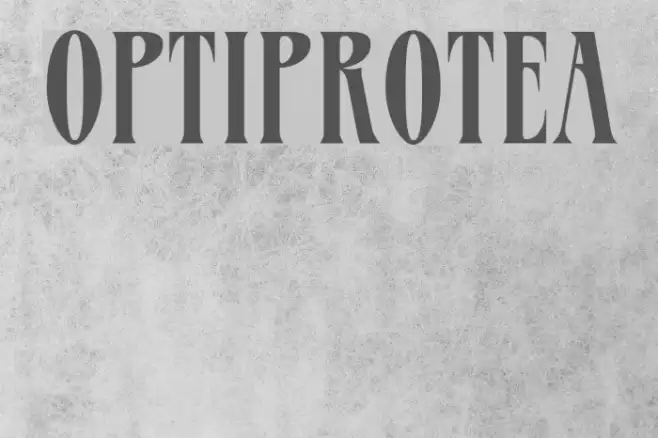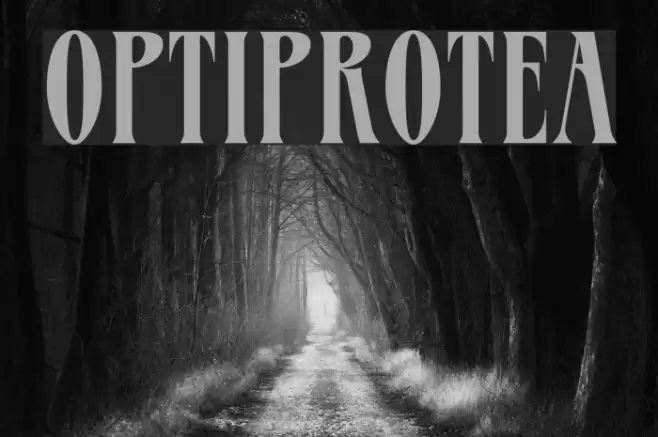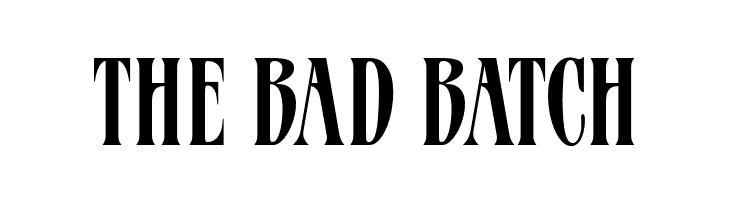
OPTIProtea Font
OPTIProtea Description
This font features a bold and dramatic style with high contrast between thick and thin strokes, giving it a striking appearance. The characters are tall and narrow, with sharp serifs that add a touch of elegance and sophistication. The uppercase letters are particularly elongated, while the lowercase letters maintain a consistent height, creating a harmonious balance. The numerals are distinct and easily readable, with a classic design that complements the overall aesthetic. Special characters are designed with the same attention to detail, ensuring a cohesive look across all glyphs.
A bold, high-contrast serif font with elongated characters and sharp serifs from Uncategorized fonts.
- Proposed Projects: Ideal for use in branding, editorial design, posters, and any project requiring a dramatic and elegant typeface.
- Overall Style: Classic